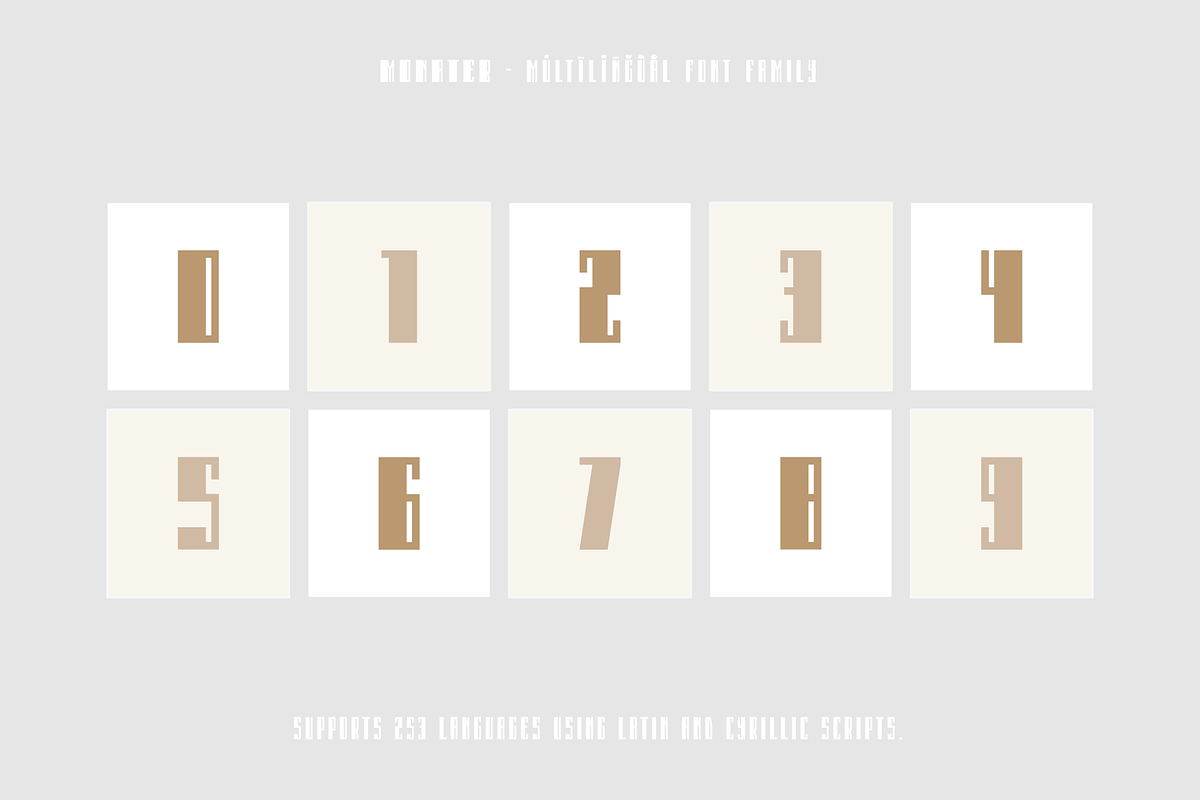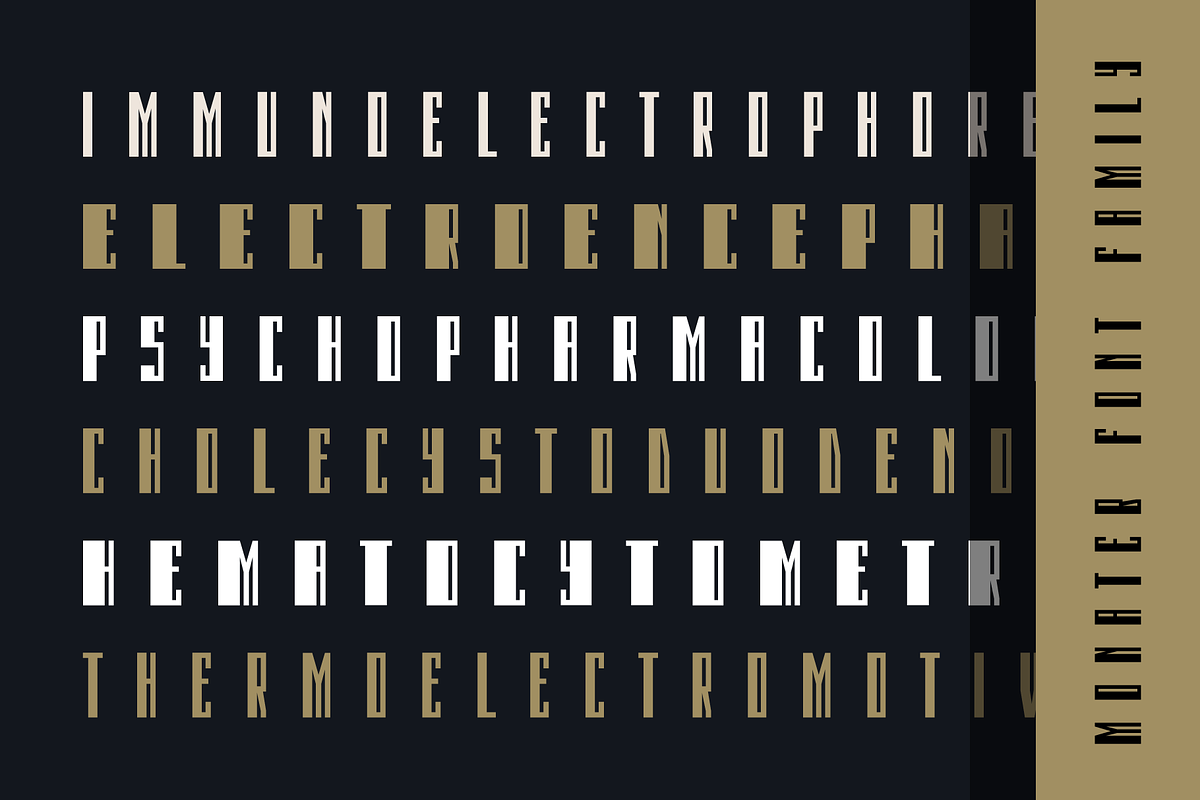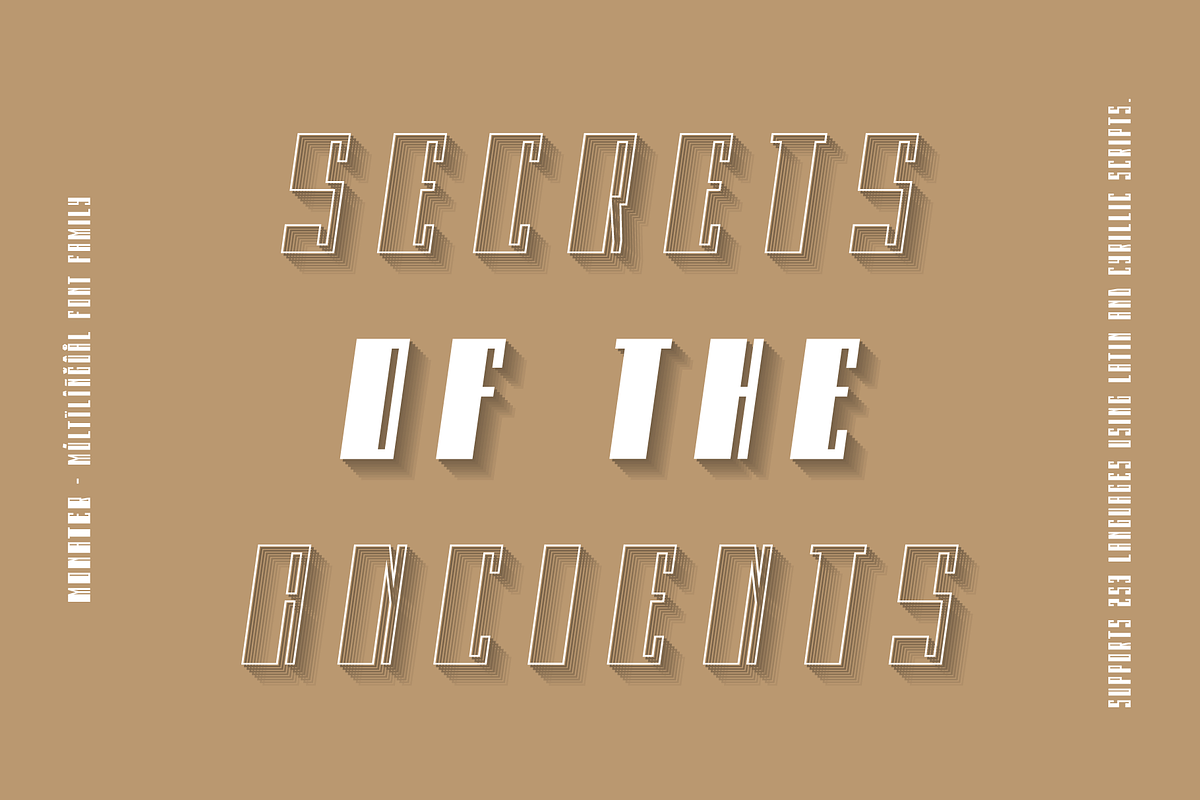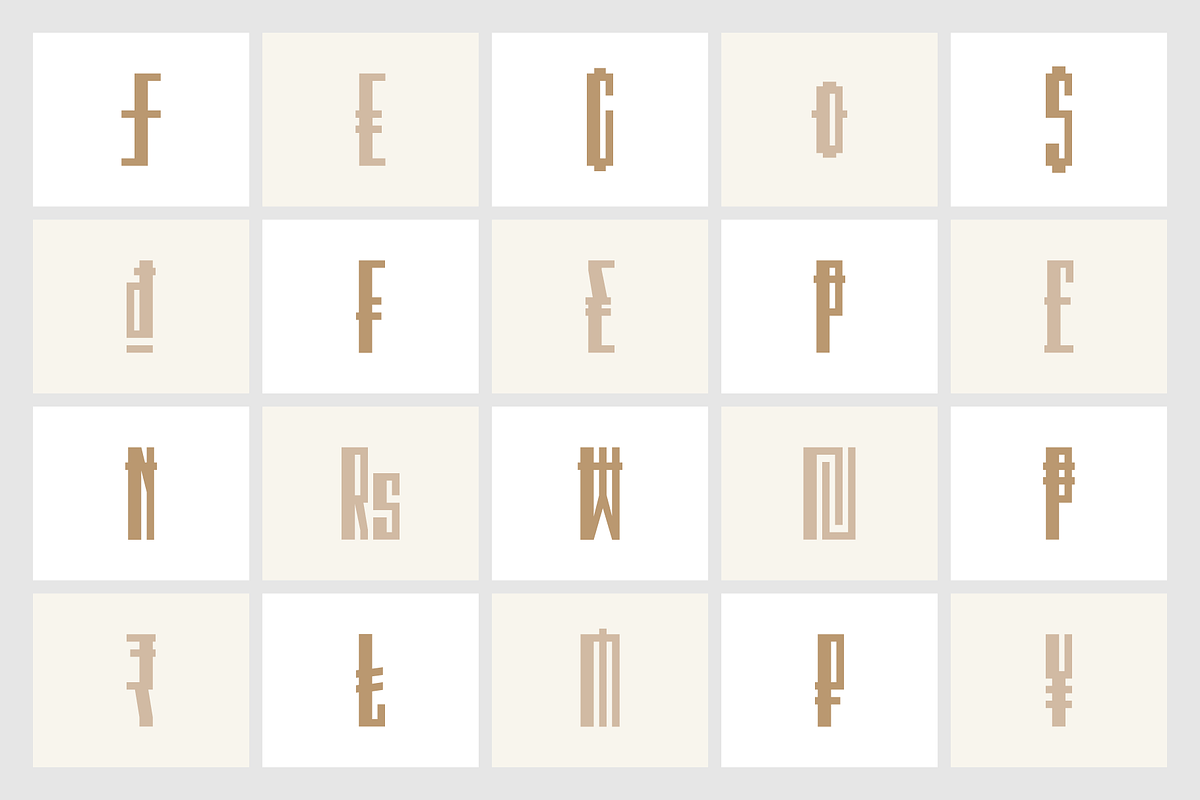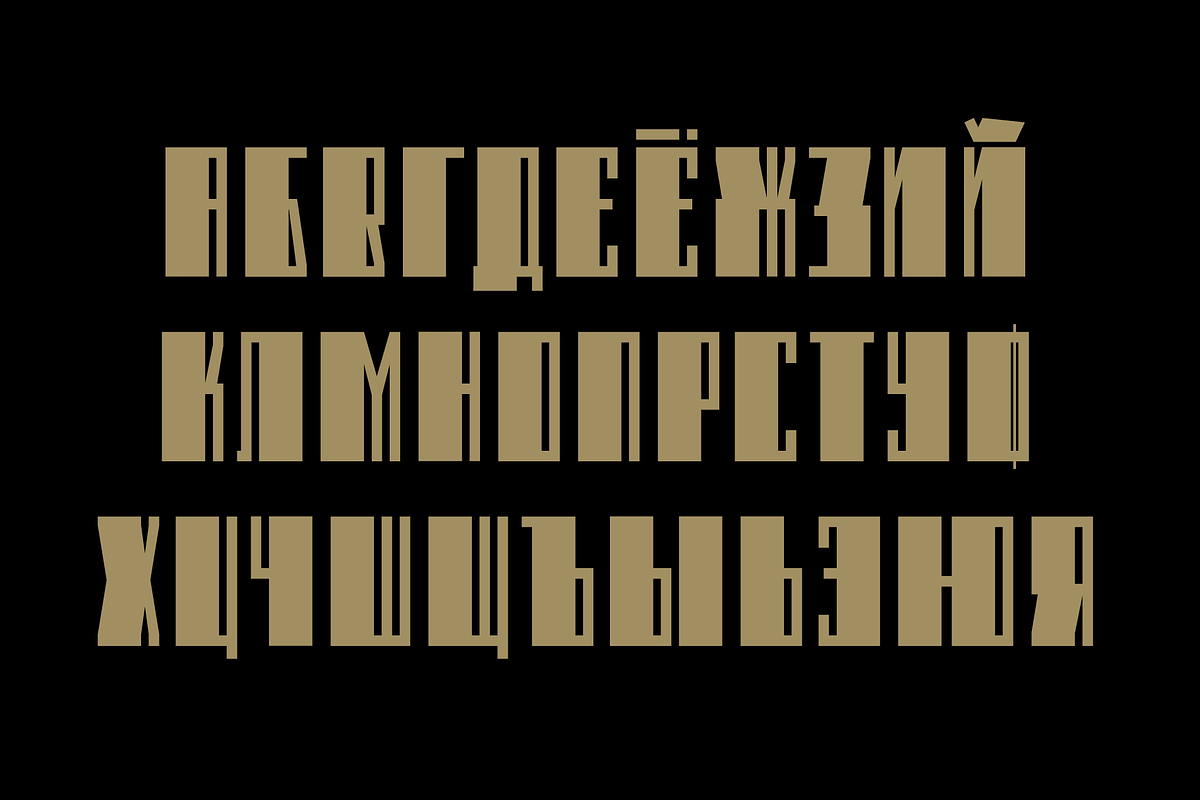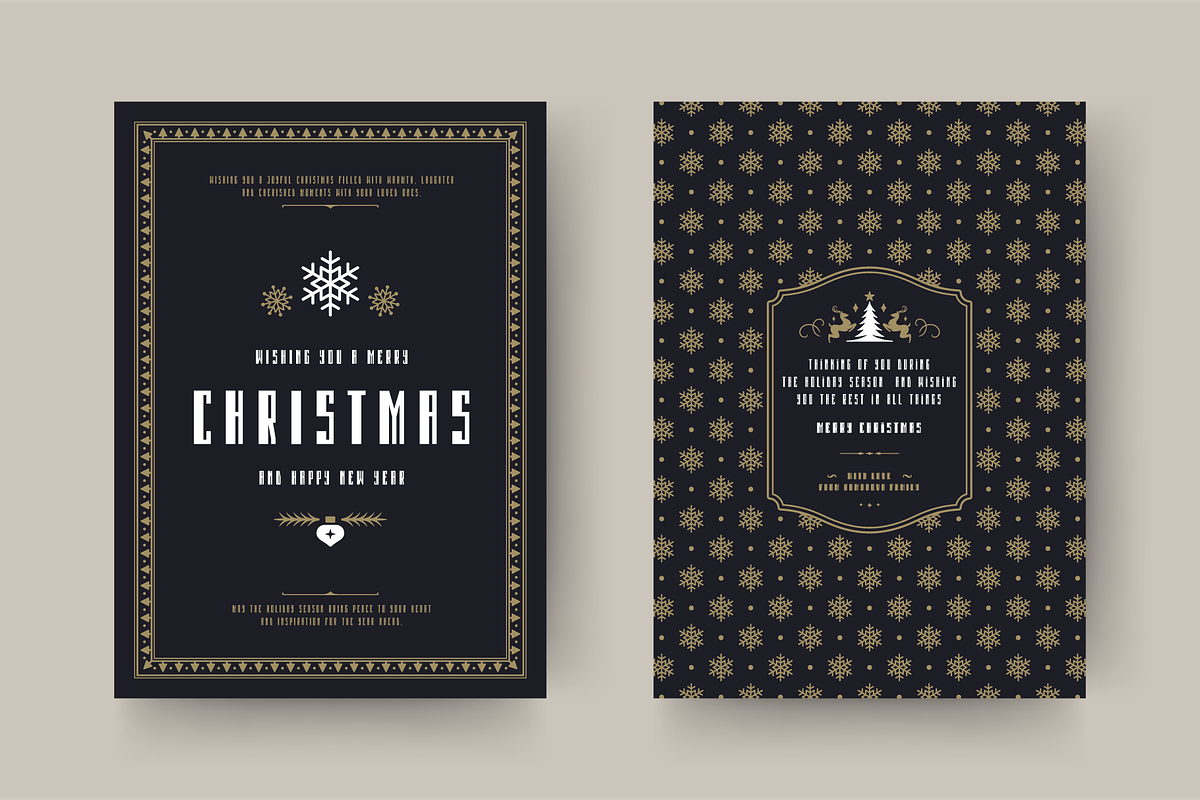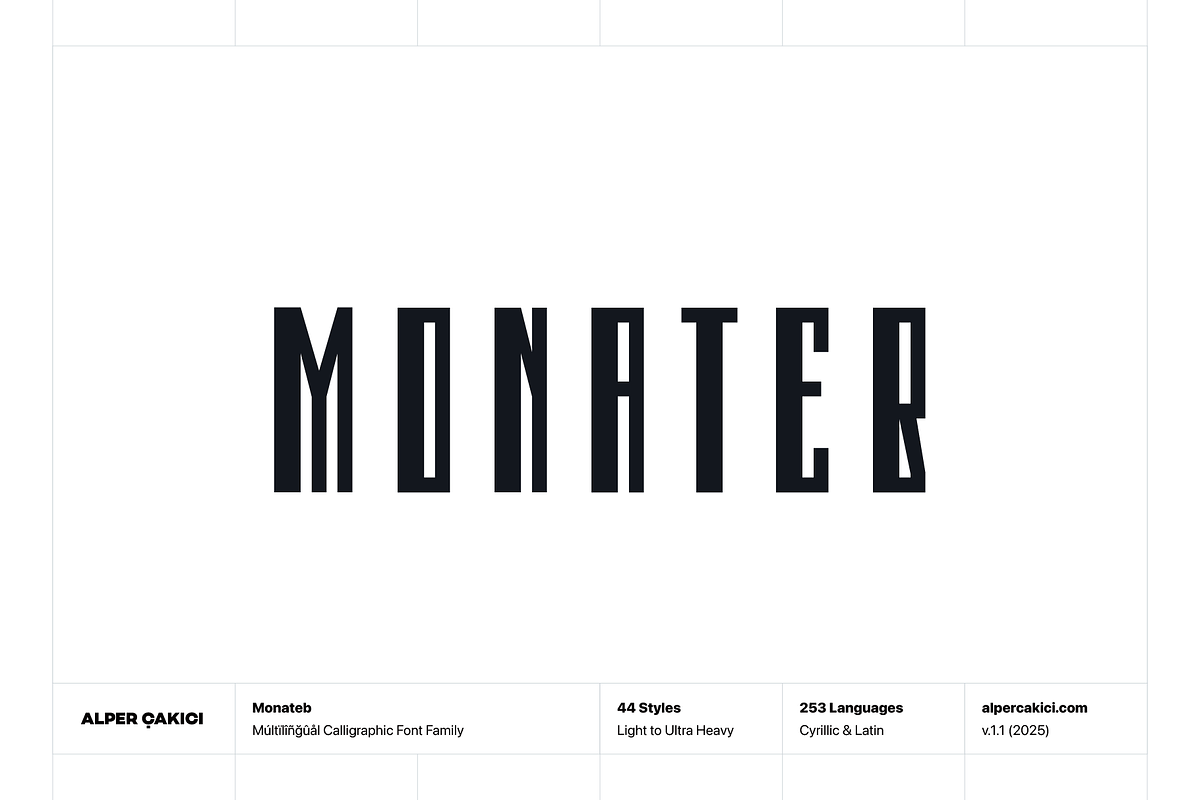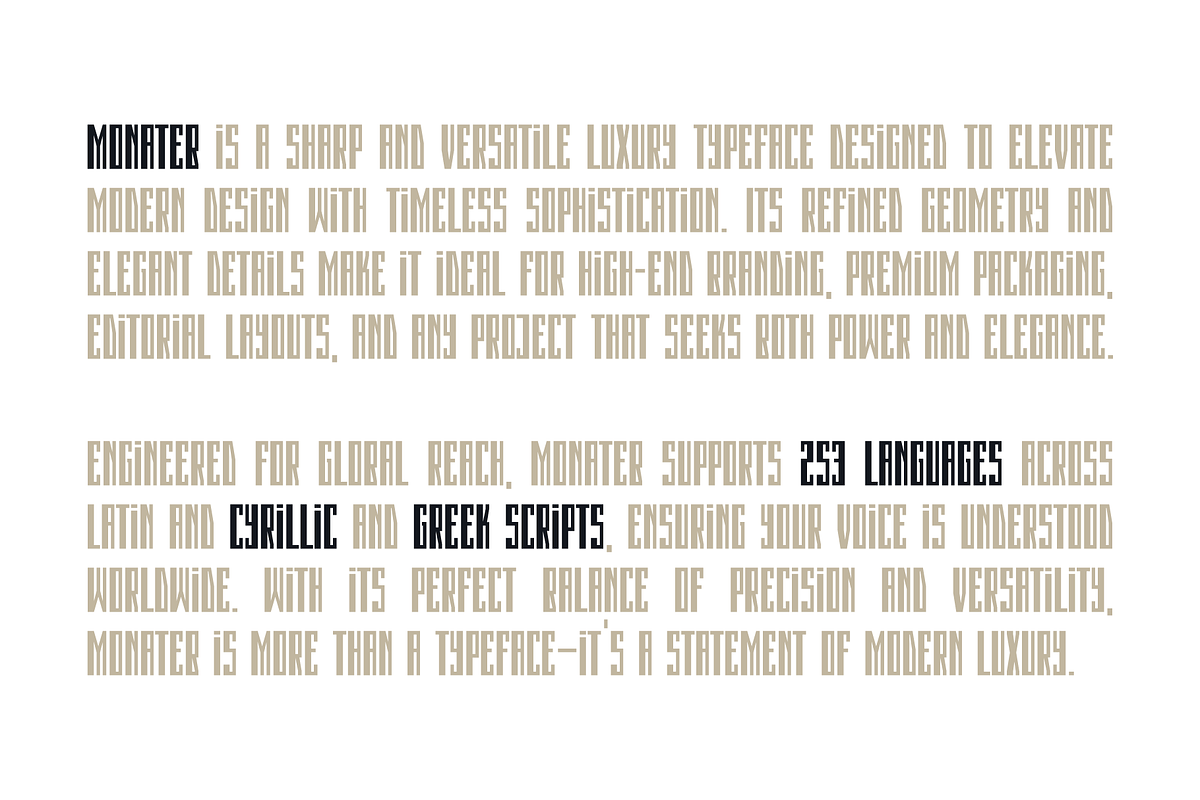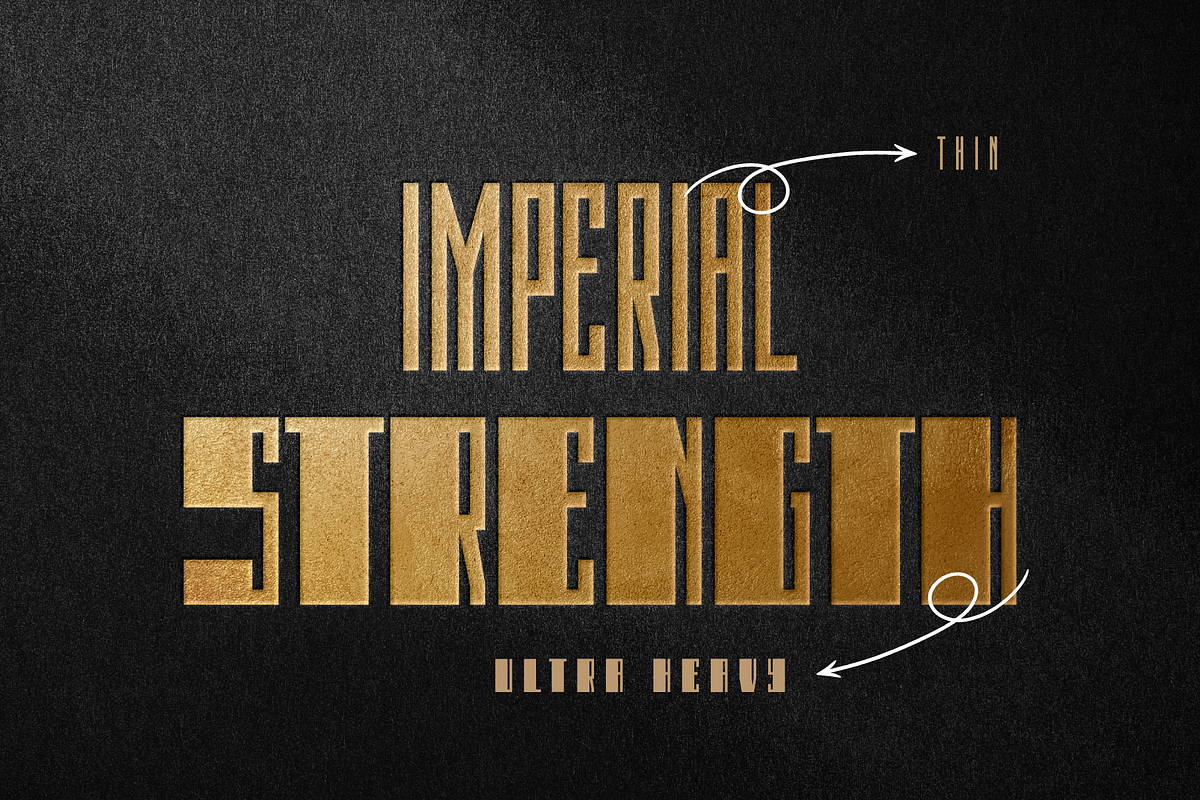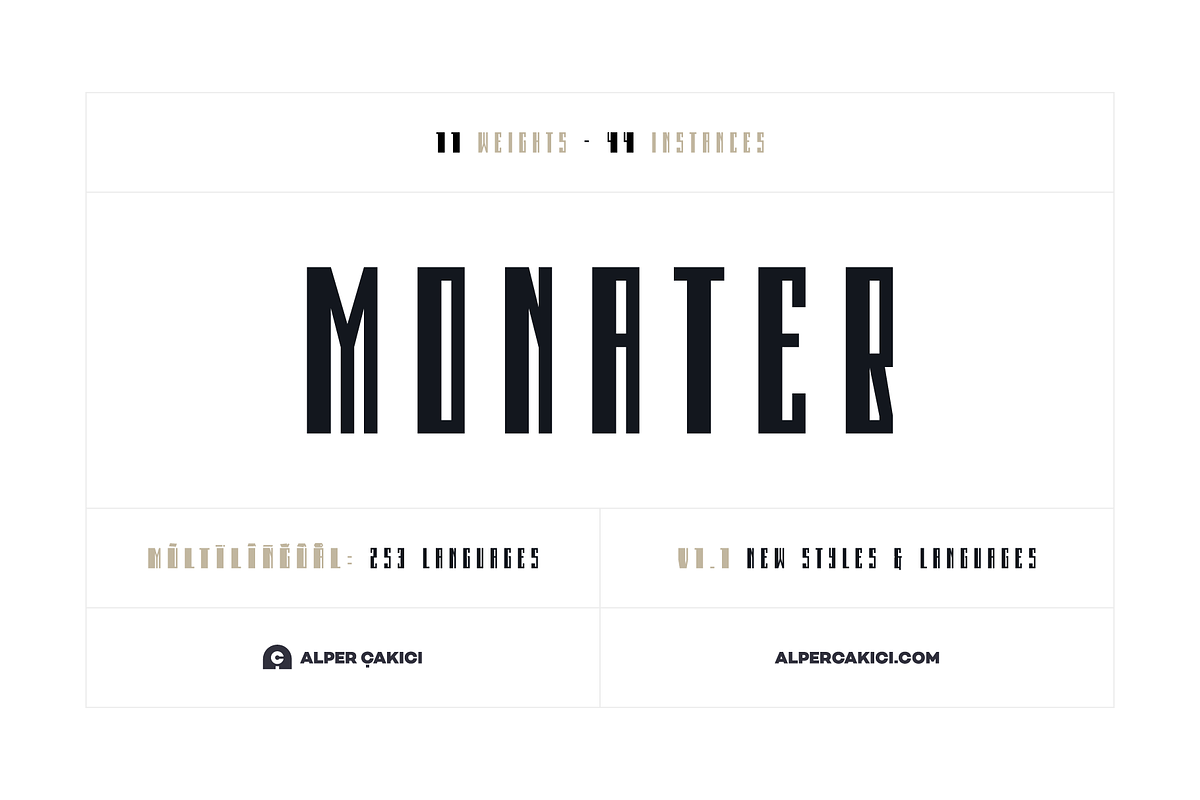
Monateb – A Font Family (44 Fonts)
Monateb is a luxury geometric typeface with refined curves and timeless elegance. Designed for branding, editorial, packaging, and digital design, it supports 253 languages across Latin, Greek and Cyrillic scripts. Now expanded with Outline styles, Monateb is perfect for global brands that value sophistication, clarity, and versatility.